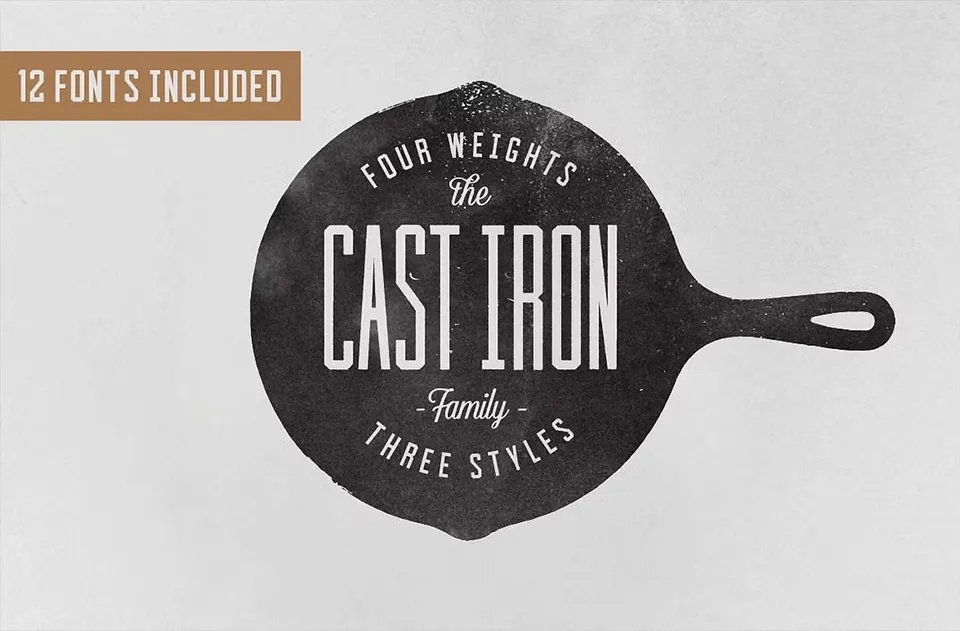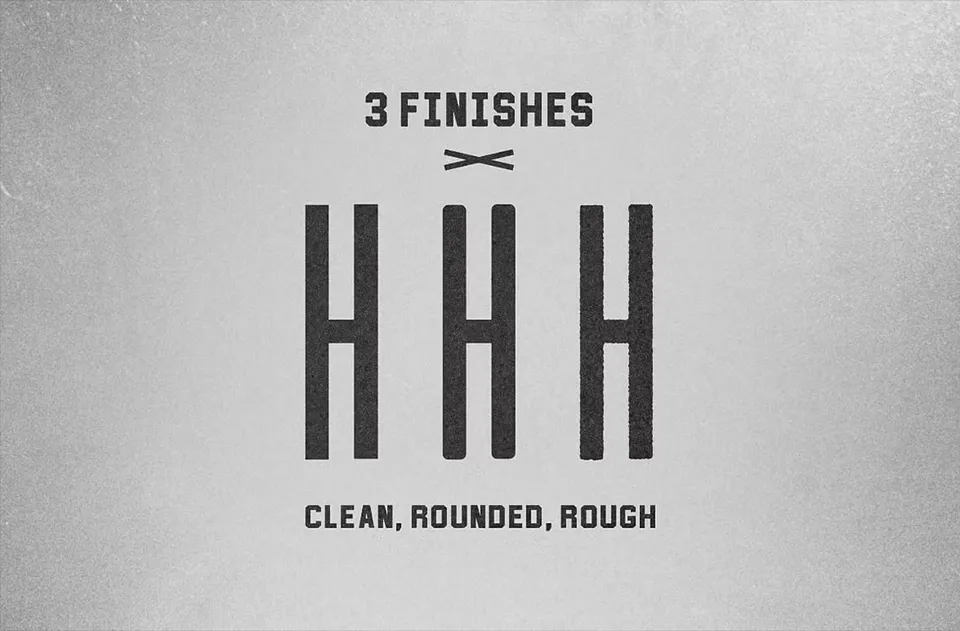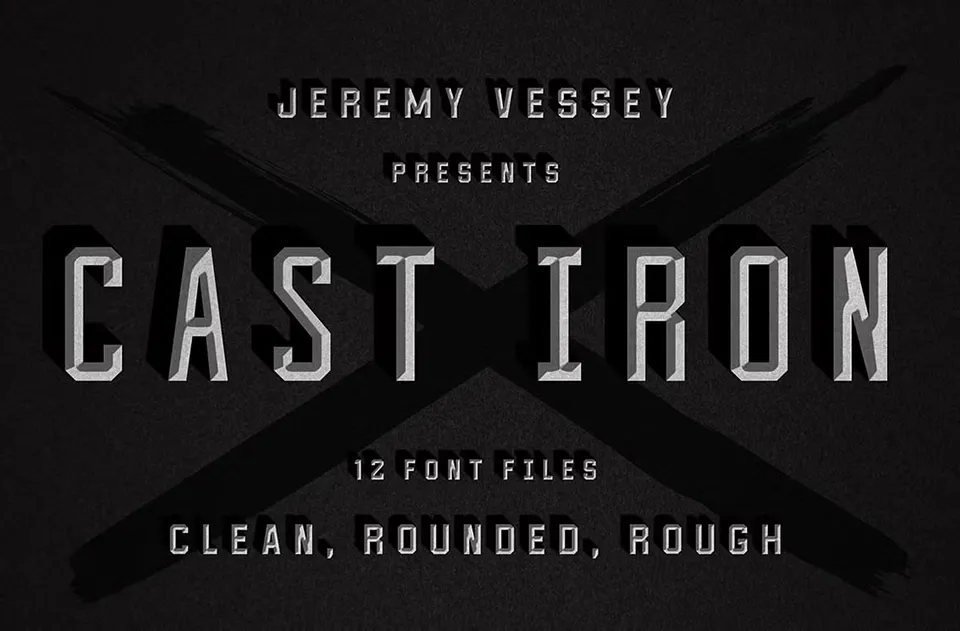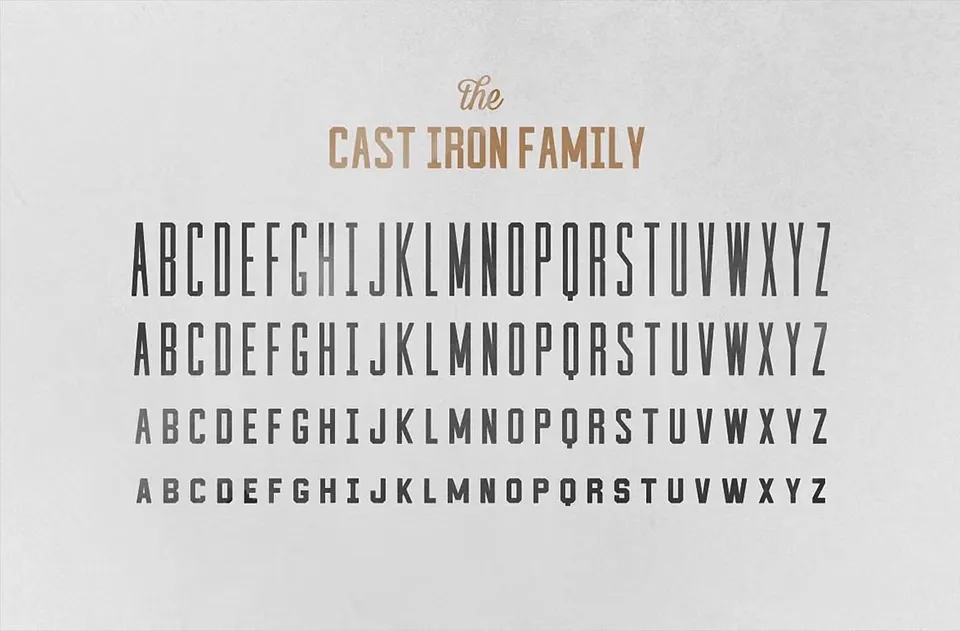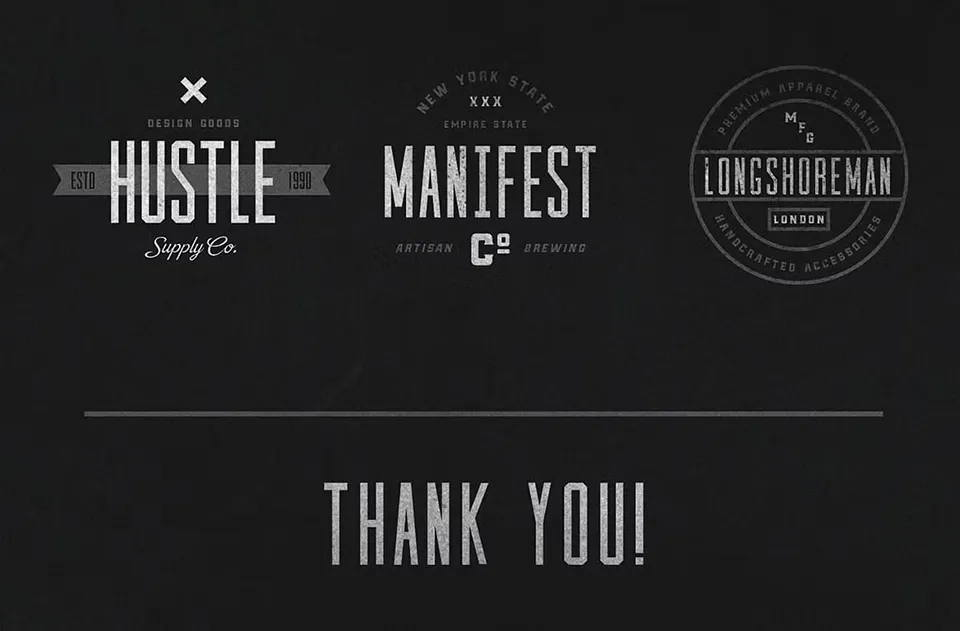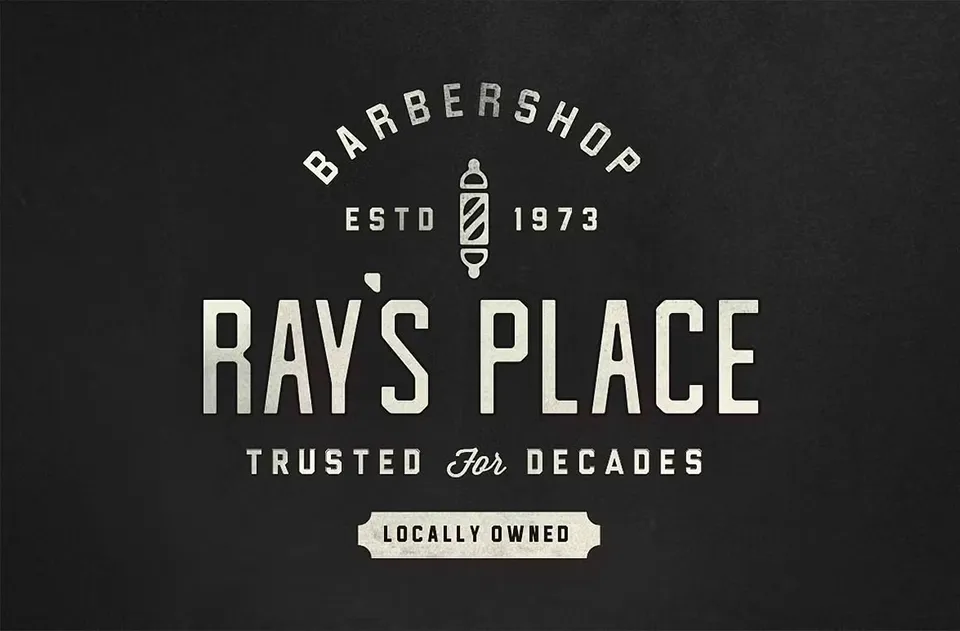
Cast Iron Font
Cast Iron Font is a bold and industrial-inspired font family designed to make a strong impression. With its rugged aesthetic and sturdy letterforms, Cast Iron is perfect for projects that demand a vintage yet modern look. Featuring four weights and three distinct styles, this versatile typeface offers endless creative possibilities for logos, posters, packaging, and branding. Its clean lines and robust design evoke the strength and durability of cast iron itself, making it ideal for themes related to craftsmanship, heritage, or outdoor adventures. Whether you’re aiming for a retro vibe or a contemporary edge, Cast Iron delivers boldness and character in every detail.